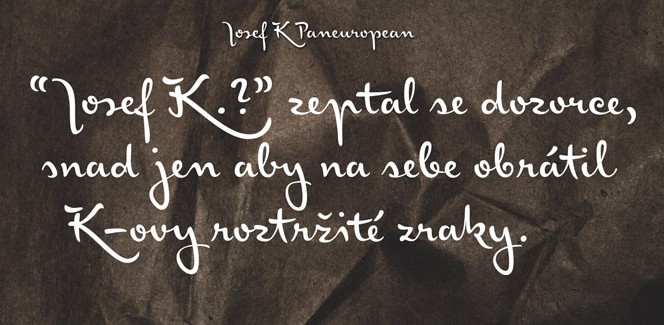
Josef K Paneuropean
Josef K Paneuropean is a contemporary typeface that is inspired by the writing style of the famous writer Franz Kafka. It is the second font by Julia Sysmäläinen that is inspired by this classic author after FF Mister K font. This time the inspiration comes from perhaps the most famous novel of Kafka – The Trial and its main character – Josef K. This character reminds us of the writer himself – a high ranking bank clerk living in a world almost engulfed by bureaucracy with its faceless and nameless servants.
First thought that springs to mind when we look at the Josef K Paneuropean typeface is about the enormous amount of research Julia Sysmäläinen did on Kafka’s handwriting allowing her to reproduce its peculiar calligraphic features. Then, we cannot but think about the masterful way she used the broad nib ink pen in order to realize her great idea. As a result, Josef K Paneuropean script is a perfect reflection of Kafka and his world. Its appearance is a reminiscent of a bureaucrat who is at a high place in the hierarchy – a self confident and quite solid man with a clear and neat handwriting. And if you ask yourself why the script is called Paneuropean, perhaps the 2500 glyphs and Western and Central European as well as the Extended Cyrillic character sets will explain that fact.